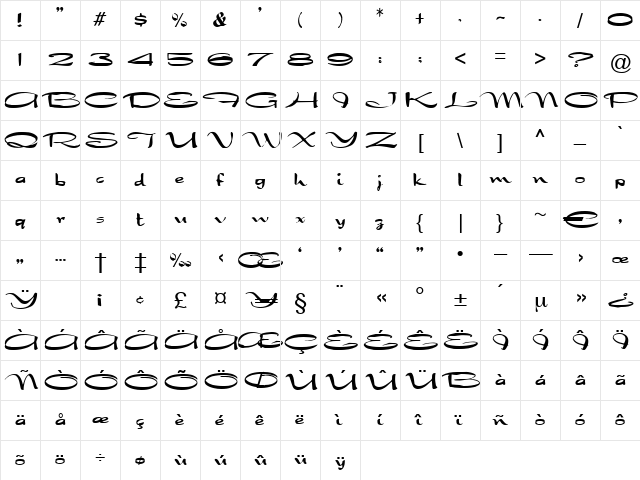
Violett Regular
Design Context for Violett
Violett is a composed and adaptable typeface that performs quietly and consistently across a wide range of design contexts.